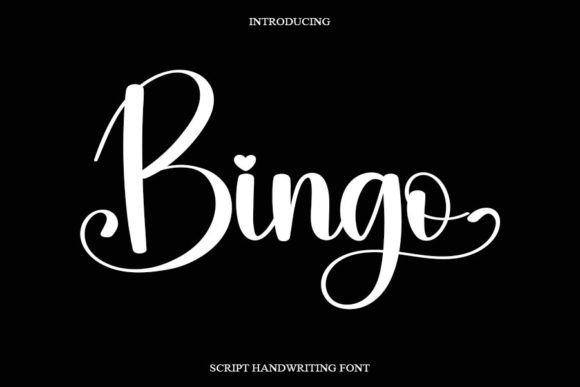
The Bingo Font: A Fun and Friendly Companion for All Your Creative Projects
I’ll never forget the time I was working on a project for a client who wanted a fun, playful vibe. I had all the design elements in place, but something was missing. That’s when I stumbled upon the Bingo font. It was like a breath of fresh air – instantly, my design went from meh to mesmerizing. If you’re a designer, crafter, or creative hobbyist looking for a font that can add a dash of personality to your work, you’re in the right place.
A Personal Review: What I Love About Bingo Font
The Bingo font has quickly become one of my go-to fonts, and for good reason. Here are some things I love about it:
• ✨ It’s incredibly versatile: Whether you’re designing a greeting card, creating a presentation, or crafting a digital graphic, Bingo fits right in.
• ✅ It’s super easy to read: Even at smaller sizes, the Bingo font remains clear and legible, making it perfect for a wide range of applications.
• 🎉 It’s fun and playful: The handwritten style of Bingo adds a touch of whimsy to any design, making it ideal for projects that need a bit of personality.
No font is perfect, and Bingo is no exception. Here are a few things to keep in mind:
• 🤔 It can be a bit too casual for very formal projects: While Bingo is great for most designs, it might not be the best fit for projects that require a more formal tone.
• ⚠️ Some letters may not work well in all combinations: As with any font, it’s a good idea to test Bingo with different letter combinations to ensure it looks great in your specific design.
The Story Behind Bingo Font
The Bingo font was designed with one goal in mind: to create a fun, friendly, and versatile font that could be used in a wide range of creative projects. The designer, inspired by the joy of playing bingo and the nostalgia of handwritten notes, crafted Bingo to bring a smile to your face and a touch of whimsy to your designs.
Font Name Bingo Font
Author Ganden Letter
What makes Bingo font so special? Bingo’s unique blend of friendliness, versatility, and playfulness makes it a standout font for a wide range of creative projects.
Is Bingo suitable for body text? While Bingo is primarily designed for headlines and short texts, it can be used for body text in certain contexts. However, its readability may vary depending on the size and intended use.